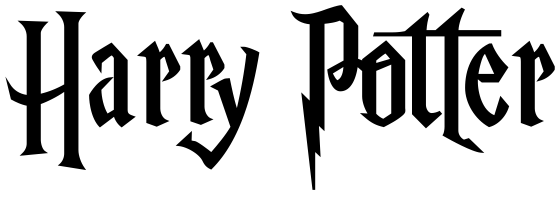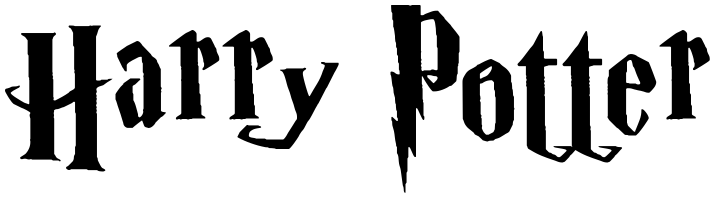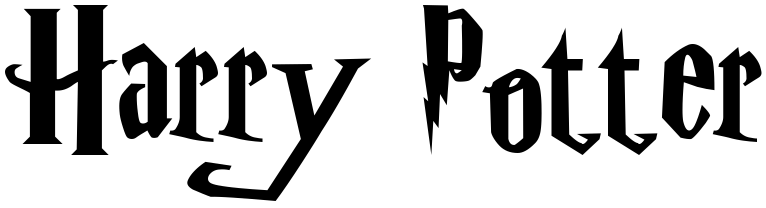
Harry Potter Font
AdventureHarry Potter is a book and film series about a young wizard's adventures and battles against the dark wizard Voldemort at Hogwarts.
No official font exists for the Harry Potter logo but we found a very polished replica called Rando Pro created by FG Studios.
The font used for the chapter titles was recreated as Lumos by CarpeSaponem.